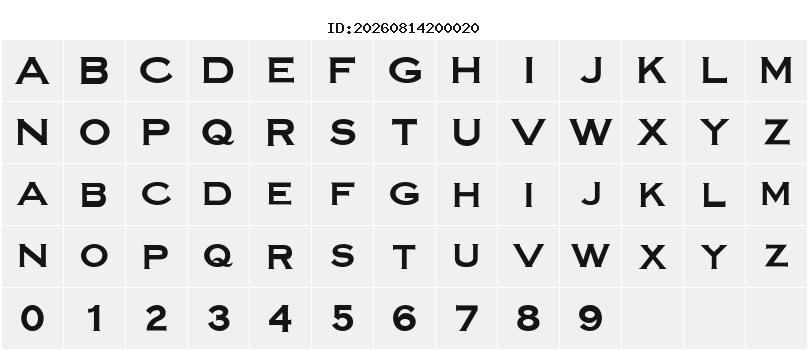
SteelplateGothicBold Preview
• Font Name: SteelplateGothicBold
• Full Font Name: SteelplateGothicBold normal
About SteelplateGothicBold.ttf
SteelplateGothicBold.ttf is a modern, elegant sans-serif font designed for ultimate readability and visual harmony. Perfect for branding, headlines, web design, and print materials.